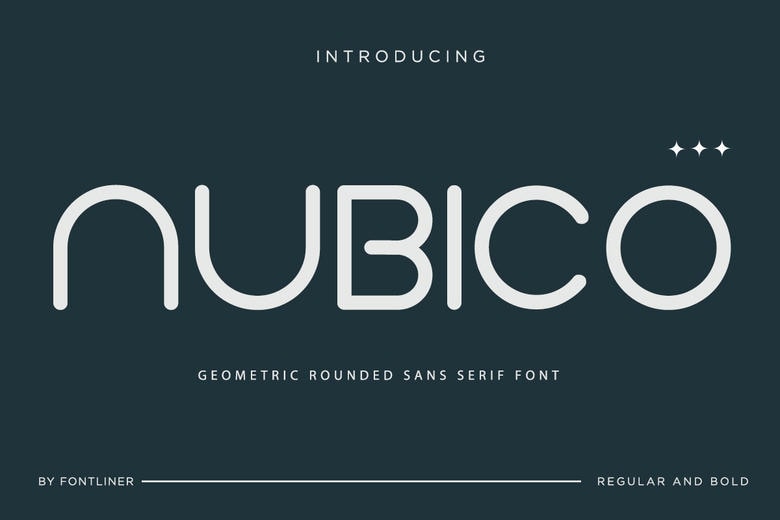
Nubico Font
Nubico is a geometric rounded sans serif font with a clean, friendly, and modern appearance. Its smooth curves and balanced shapes give it a fresh style that feels inviting yet professional.
Nubico’s versatile style works well for branding, tech startups, apps, UI/UX, logos, packaging, ads, editorial layouts, social media, presentations, websites, and digital products. Its rounded shapes make text easy to read and give designs a soft but confident look that stands out in print and online.
Nubico Sans Serif Font